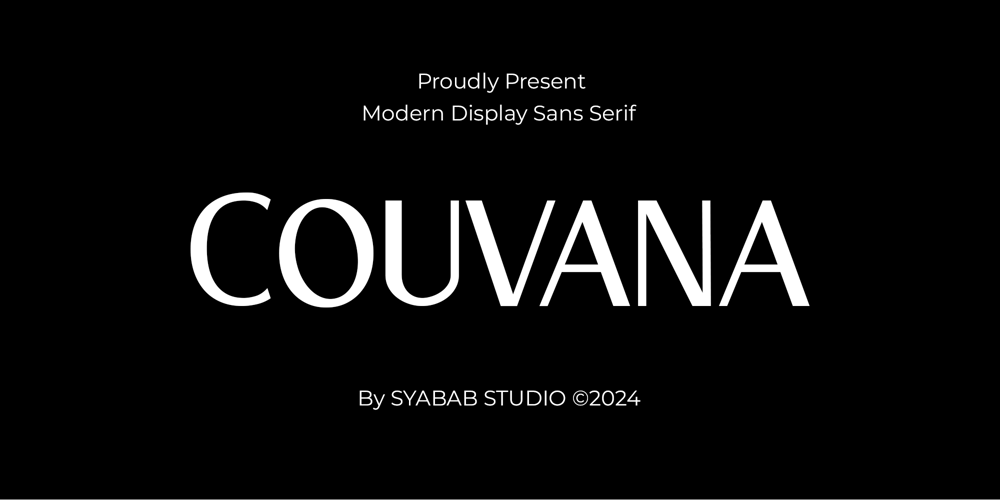
Couvana Font Family was designed by Rahmad Khoiri and published by Syabab Studio. Couvana contains 1 styles and family package options. Couvana is a collection of fonts that offers modern elegance for your design projects. With elegant touches and intricate details, each letter flows seamlessly to create an attractive and professional appearance. With various styles and weights, Couvana is suitable for a variety of design needs, ranging from promotional materials to brand identity design. With a combination of finesse and strength, Couvana leaves an unforgettable impression on every design work.What you getUppercase lettersNumbers & punctuationExtended Non-English support